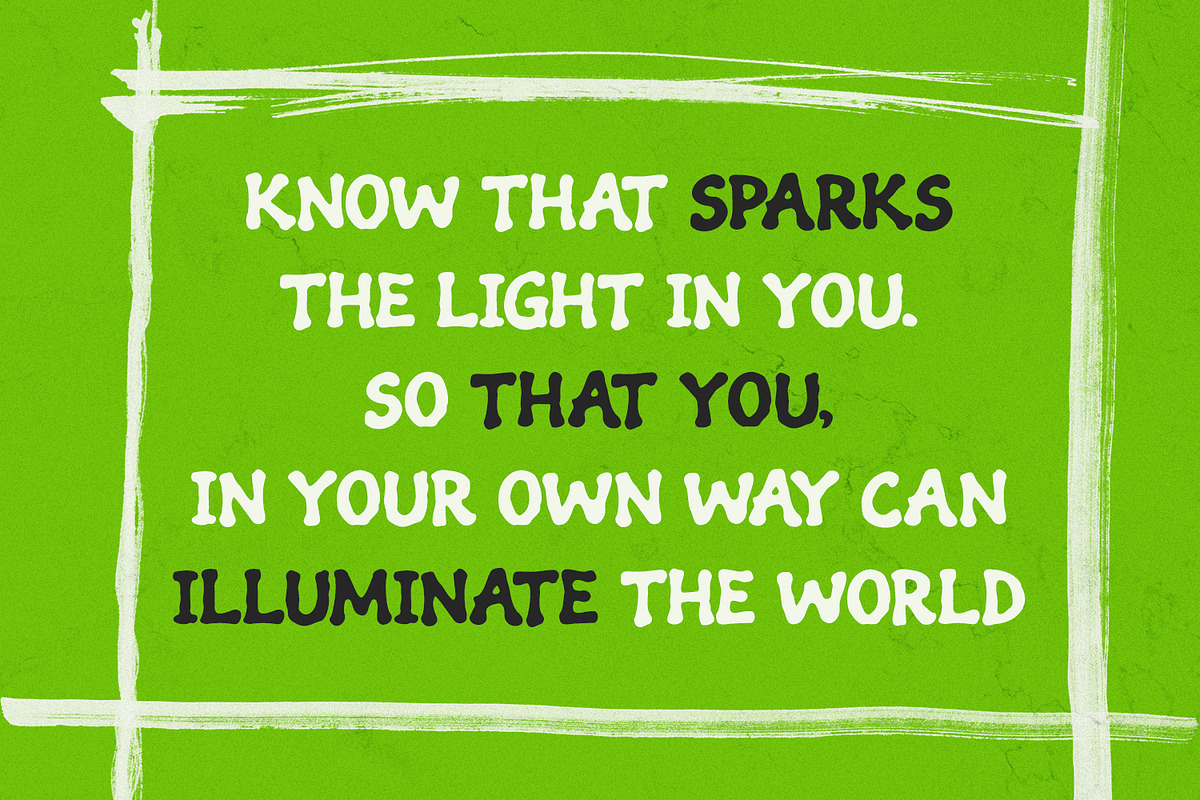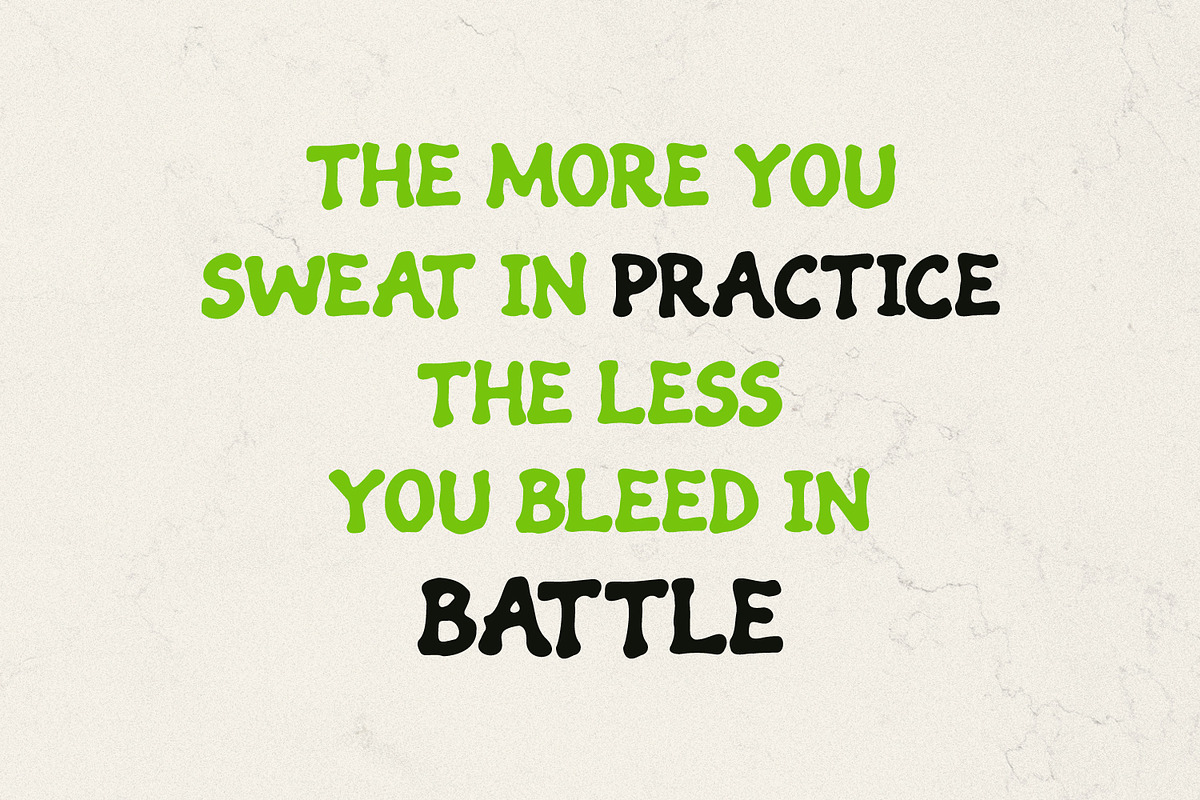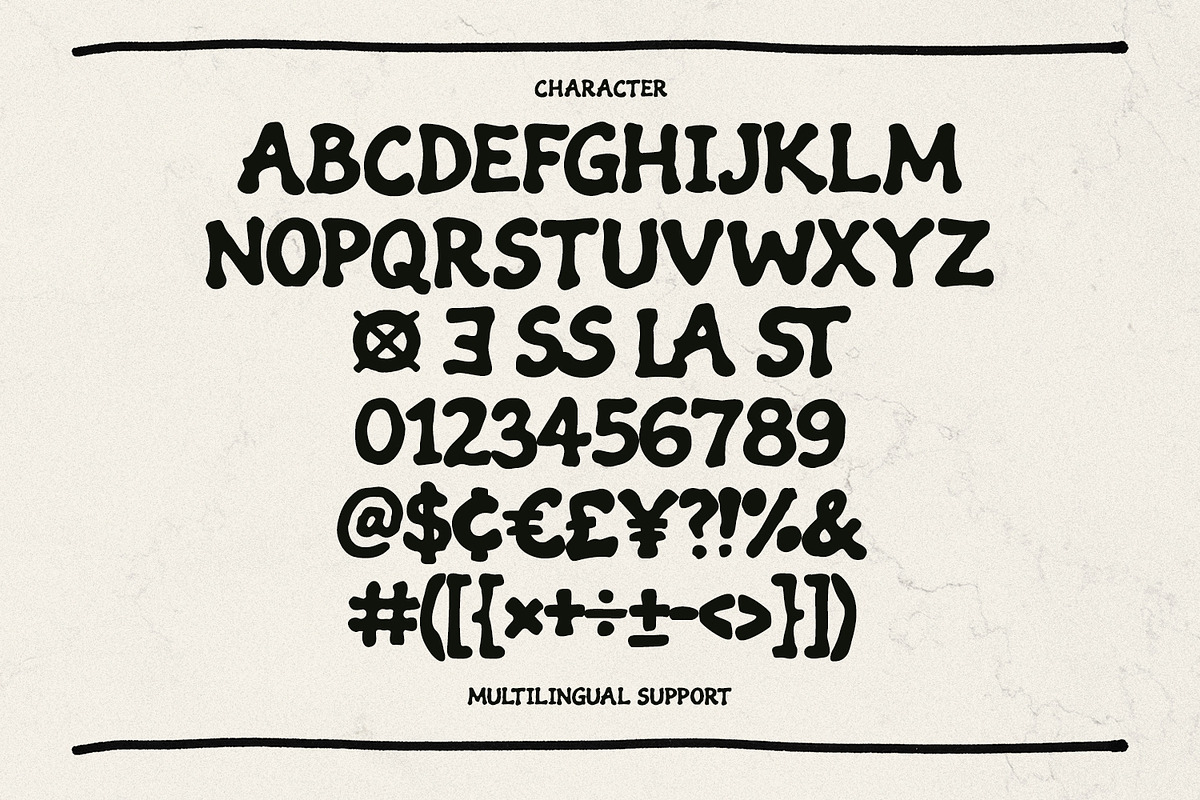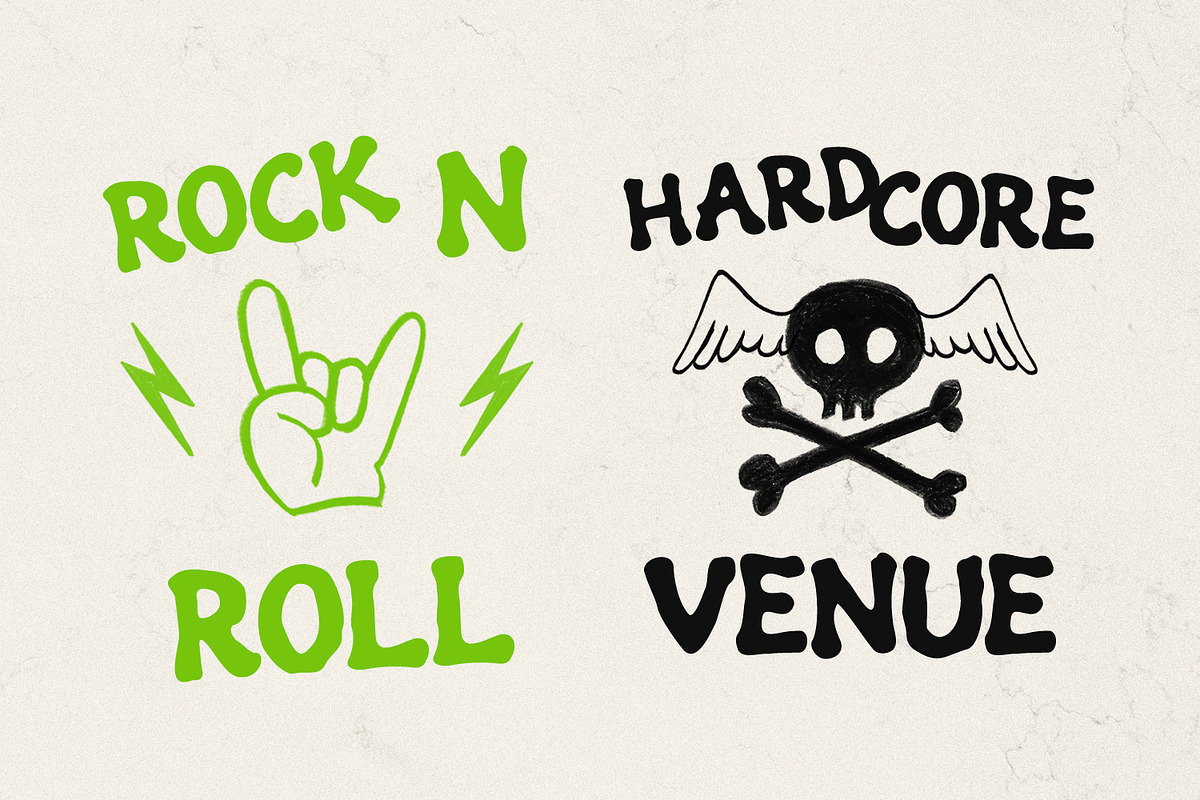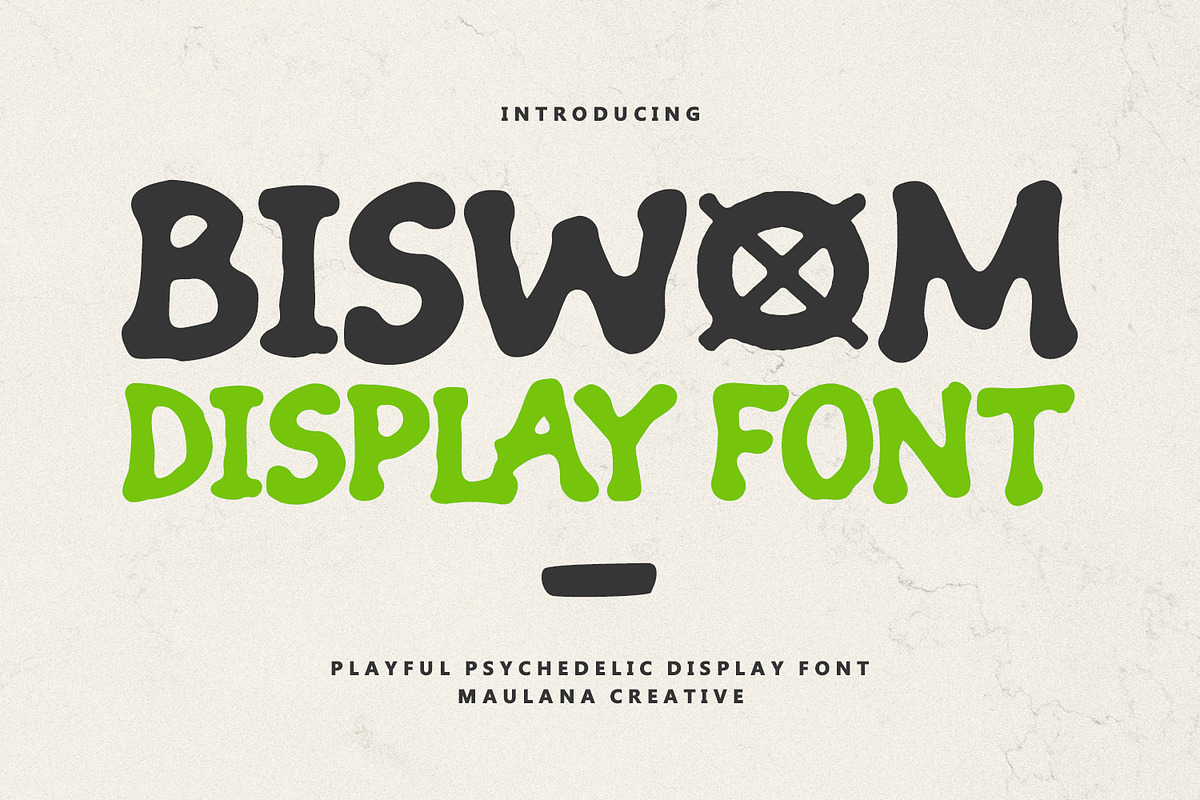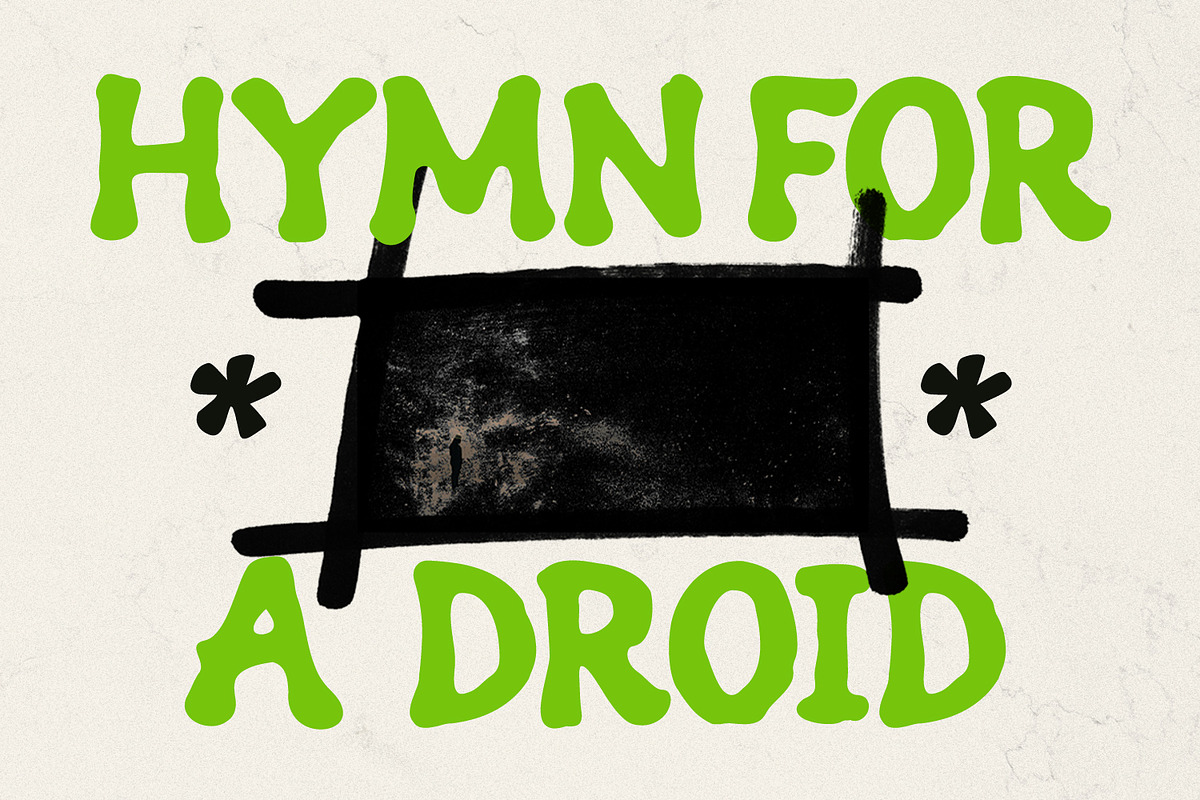
Biswom Playful Psychedelic Display
Biswom is a vibrant and energetic display font that blends retro psychedelic vibes with a modern, playful twist. Featuring organic, fluid shapes and bold, hand-drawn weights, this font captures a sense of rhythmic movement. It is perfect for expressive branding, rock posters, streetwear apparel, and any creative project that needs a touch of rebellious, "hardcore" personality. Its unique ligatures and multilingual support make it as functional as it is stylish.
- Full character set
- Numbers, Punctuation, and Symbols
- Alternate and ligatures for a natural handwriting flow